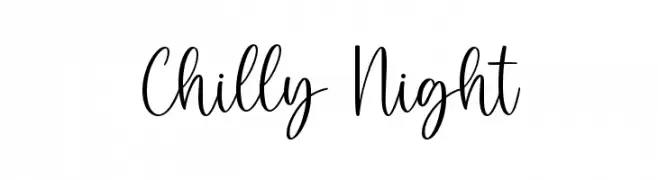
Bold, rounded, playful display font with a spooky vibe.
A modern, rounded font with a clean and friendly appearance.
A bold, playful font with a modern and slightly condensed style.
A casual, handwritten font with a playful and relaxed style.
A bold, flowing script font with a handwritten appearance.
A graceful script font with fluid, connected strokes and elegant flourishes.
A relaxed and elegant script font with flowing, cursive letterforms.
A bold, flowing script font with smooth, connected letters and a modern aesthetic.
A bold, blocky font with a vintage-modern style, perfect for impactful designs.
A bold, playful handwritten font with rounded edges and a casual vibe.
A bold, expressive font with dynamic, flowing strokes.
A decorative dingbat font with cartoon children illustrations.
A casual, handwritten font with a playful and informal style.
A flowing, cursive script font with elegant, interconnected strokes.
A playful and whimsical font with bold, rounded letterforms and a casual slant.
A playful, rounded font with bold, smooth curves and a friendly style.
A bold, geometric font with a playful and modern style.
A playful, flowing script font with a handwritten aesthetic.
A playful, handwritten font with bold, rounded strokes and a lively, informal style.
A pixelated, blocky font with a retro digital aesthetic.
A bold, geometric font with an architectural and futuristic style.
A playful, handwritten font with a casual and friendly style.
A bold, decorative font with a three-dimensional, shadowed effect and intricate patterns.
Playful, bubble-like hand-drawn font.
A bold, brush-style font with dynamic and expressive strokes.
A pictogram dingbat set themed around Chinese culture.
Iconic dingbat font showcasing Chinese cultural symbols.
A modern, geometric font with a futuristic and minimalistic design.